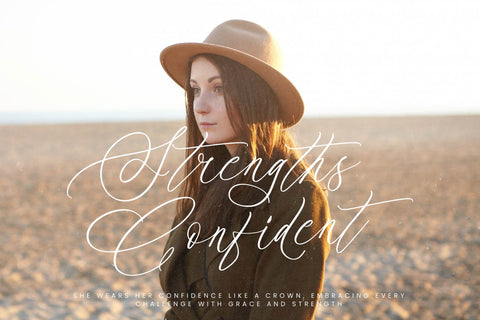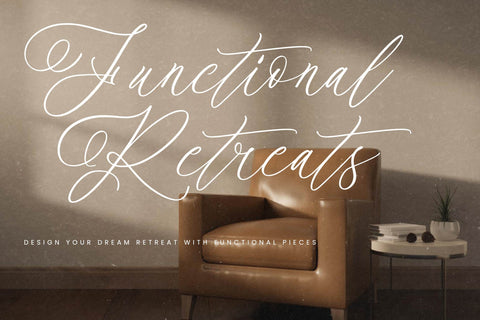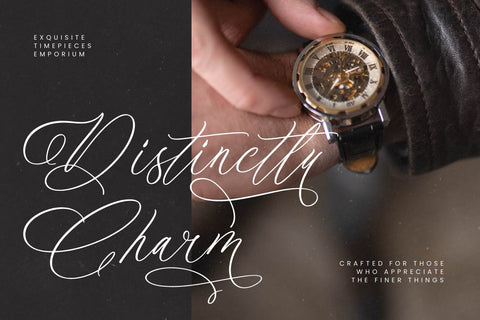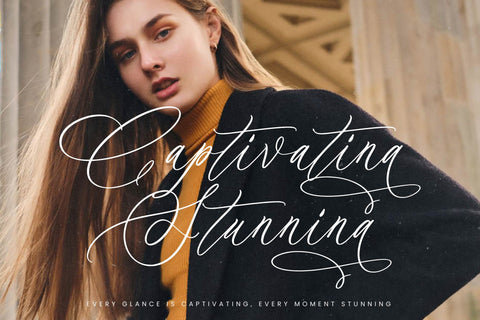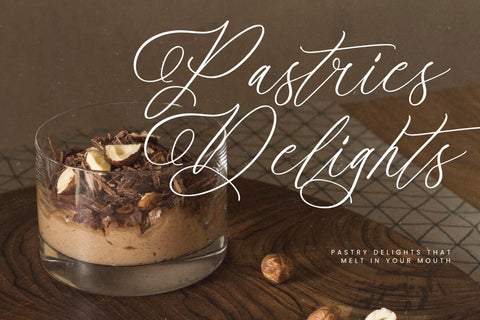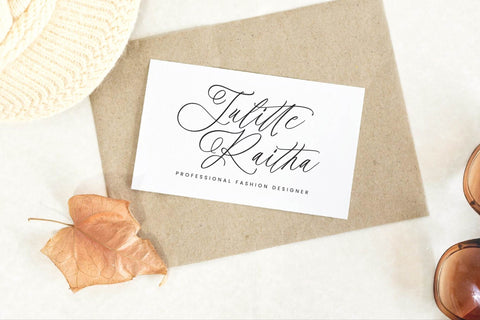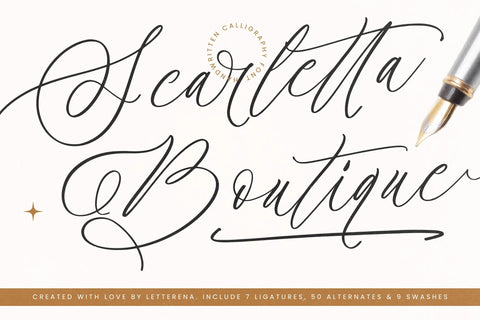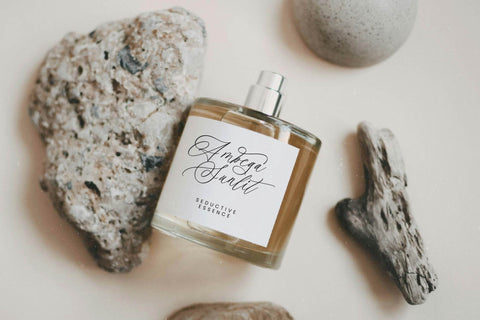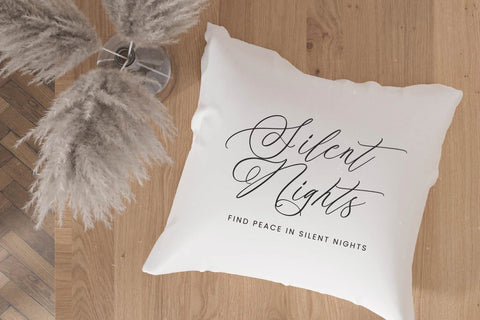
Scarletta Boutique - Handwritten Calligraphy Font
Scarletta Boutique - Handwritten Calligraphy Font , from Letterena, is a Luxury Script font, suitable for any projects such as: logos, branding projects, homeware designs, product packaging, mugs, quotes, posters, shopping bags, t-shirts, book covers, name card, invitation cards, greeting cards, label, photography, watermark, special events, and all your other luxury and beautiful projects that need a Luxury Script taste.